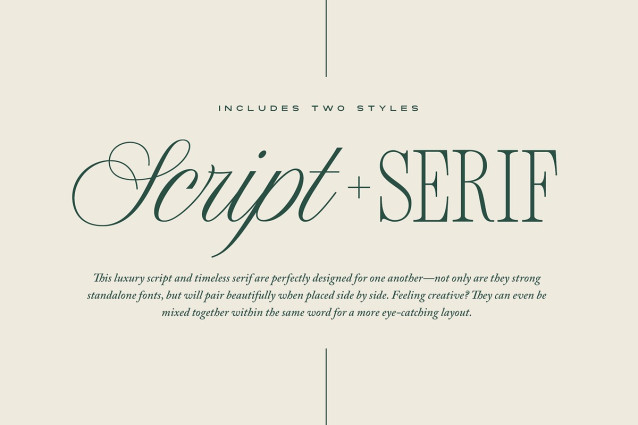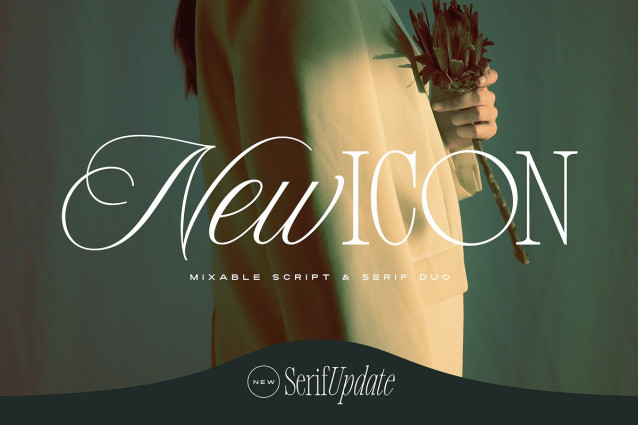
New Icon Font Duo
New Icon Font Duo This luxury script and timeless serif are perfectly designed for one another-not only are they strong standalone fonts, but will pair beautifully when placed side by side. Feeling creative? They can even be mixed together within the same word for a more eye-catching layout, giving you a versatile set of fonts which can be used & loved across a range of design projects.